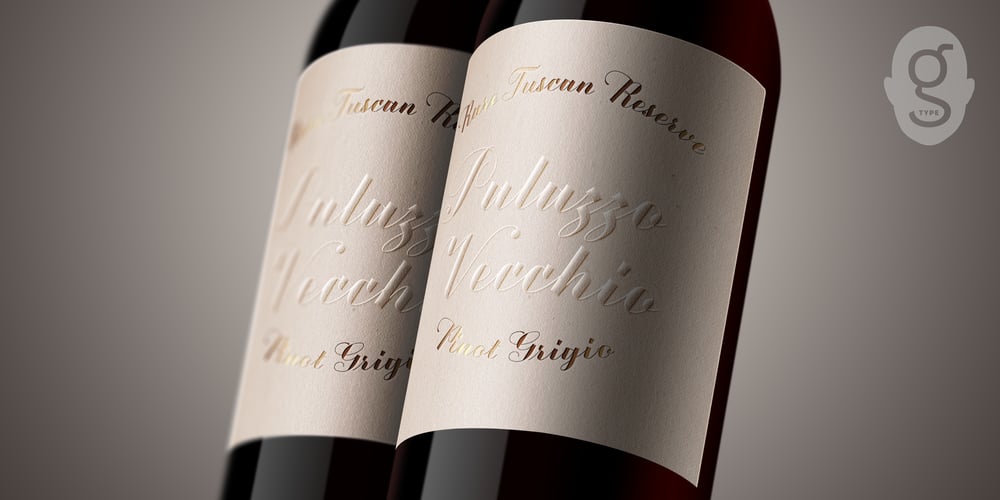
Copperscript
Copperscript font
Copperscript Font Family was designed by Nick Cooke and published by G-Type. Copperscript contains 6 styles and family package options. As the name suggests this typeface is a constructed Copperplate Script, an archaic style given a modern typographic twist.Copperscript comes with six base weights ranging from ExtraLight to ExtraBold.The typeface contains a series of lead-in and end characters which kick in automatically when the contextual alternates feature is active. Copperscript reads beautifully at all sizes and includes directional arrows, an alternate set of caps plus lower case ‘r’ & ‘z’ style set variations.